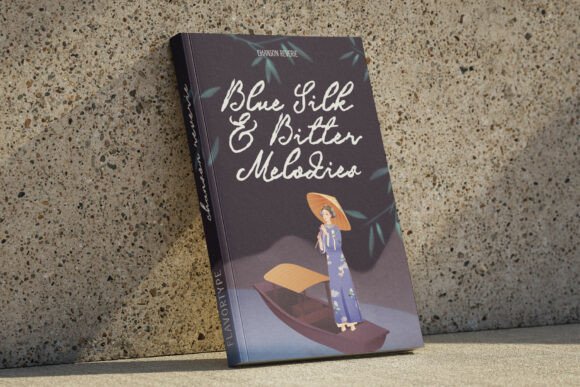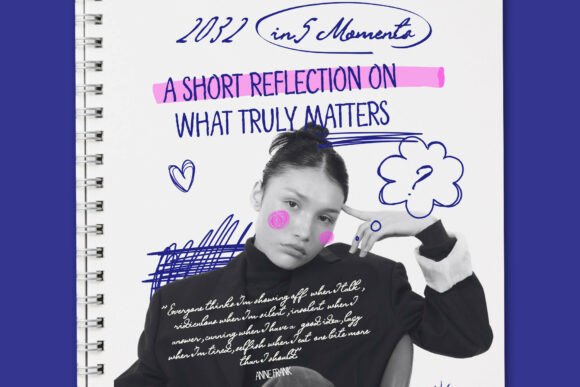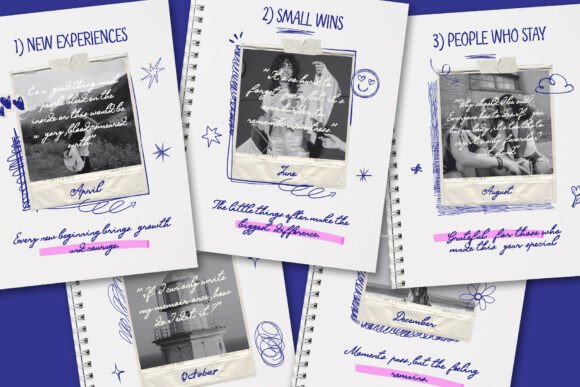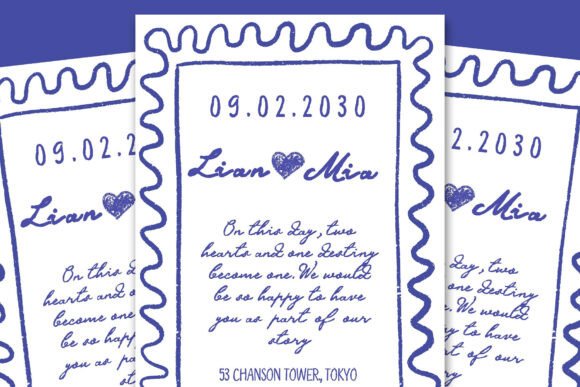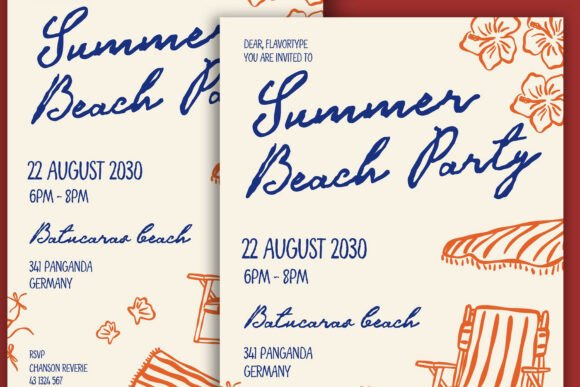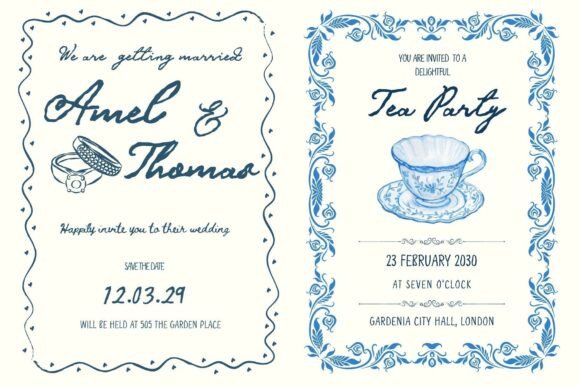
The Perfect Blend of Whimsy and Warmth: Chanson Reverie Font
Do you remember the last time you stumbled upon an old, worn-out postcard or a handwritten note from a loved one? The way the ink bled onto the paper, the imperfections in the handwriting, and the sense of personal touch it conveyed – it’s a feeling that’s hard to replicate with digital fonts. That’s where Chanson Reverie Font comes in – a handmade duo that captures the essence of handwritten charm and nostalgia.
This beautiful font pairing is designed to add a personal and heartfelt touch to your designs. With its expressive script and hand-drawn sans serif, Chanson Reverie Font is perfect for designers who want to create memorable and emotive content. Whether you’re designing invitations, branding, or social media content, this font duo is sure to add a cozy and expressive feel that will leave a lasting impression on your audience.
- Unique Characteristics: Elegant and whimsical script font, ideal for wedding invitations, greeting cards, and other creative projects
Chanson Reverie Font Review
I recently had the chance to work with the Chanson Reverie font, and I must say it’s a unique and intriguing typeface. ✨ One of the things that stands out about this font is its elegant and whimsical feel, making it perfect for creative projects that require a touch of sophistication.
- ✨ Elegant and whimsical feel
- ✨ Perfect for creative projects, such as book covers, invitations, and advertisements
- ✨ Supports a wide range of languages
However, there are a few limitations to consider: ⚠️ The font is not ideal for large blocks of text, as it can become difficult to read. Additionally, the font’s elegance may not be to everyone’s taste, and some may find it too ornate or distracting.
- ⚠️ Not ideal for large blocks of text
- ⚠️ May be too ornate or distracting for some users
- ⚠️ Limited support for certain languages and character sets
Overall, I think the Chanson Reverie font is a great addition to any designer’s toolkit, but it’s essential to use it judiciously and in the right context. With its unique charm and elegant feel, it’s perfect for projects that require a touch of whimsy and sophistication.
Tips for Getting the Most Out of Chanson Reverie Font
Chanson Reverie Font is a elegant and sophisticated font that works well for a variety of applications. Some tips for getting the most out of this font include:
- Use it for headings and titles to add a touch of elegance.
- Pair it with a clean and simple font for body text.